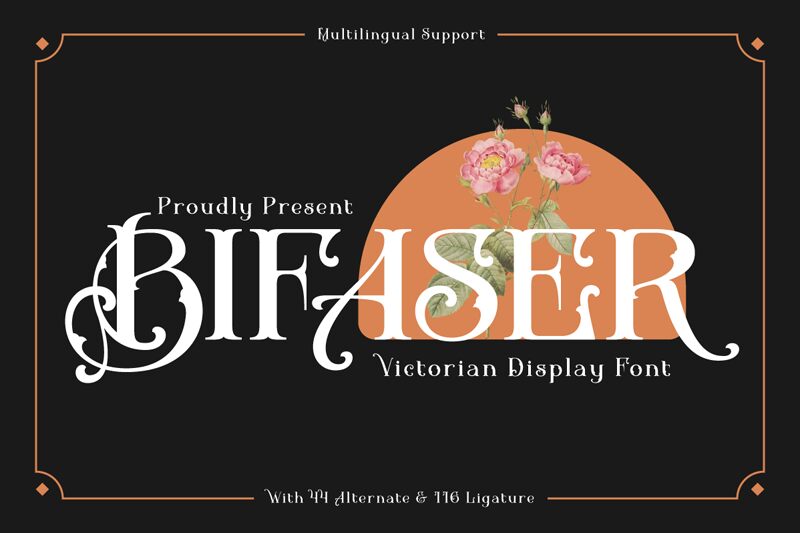
Bifaser font, designed by Twinletter, is a free display font inspired by decorative vintage styles and the formats that were prevalent back in the day. Its letters are bold and geometric for emphasis but also show a more real side that balances the highly ornate retro designs for a tamer appearance that can comfortably be used today.
Use it for logos or packaging designs for music shop items and apparel items as well as band posters. Use it in magazines, book covers, classic novel copies, invitation or greeting cards such as holiday cards and party invitations.